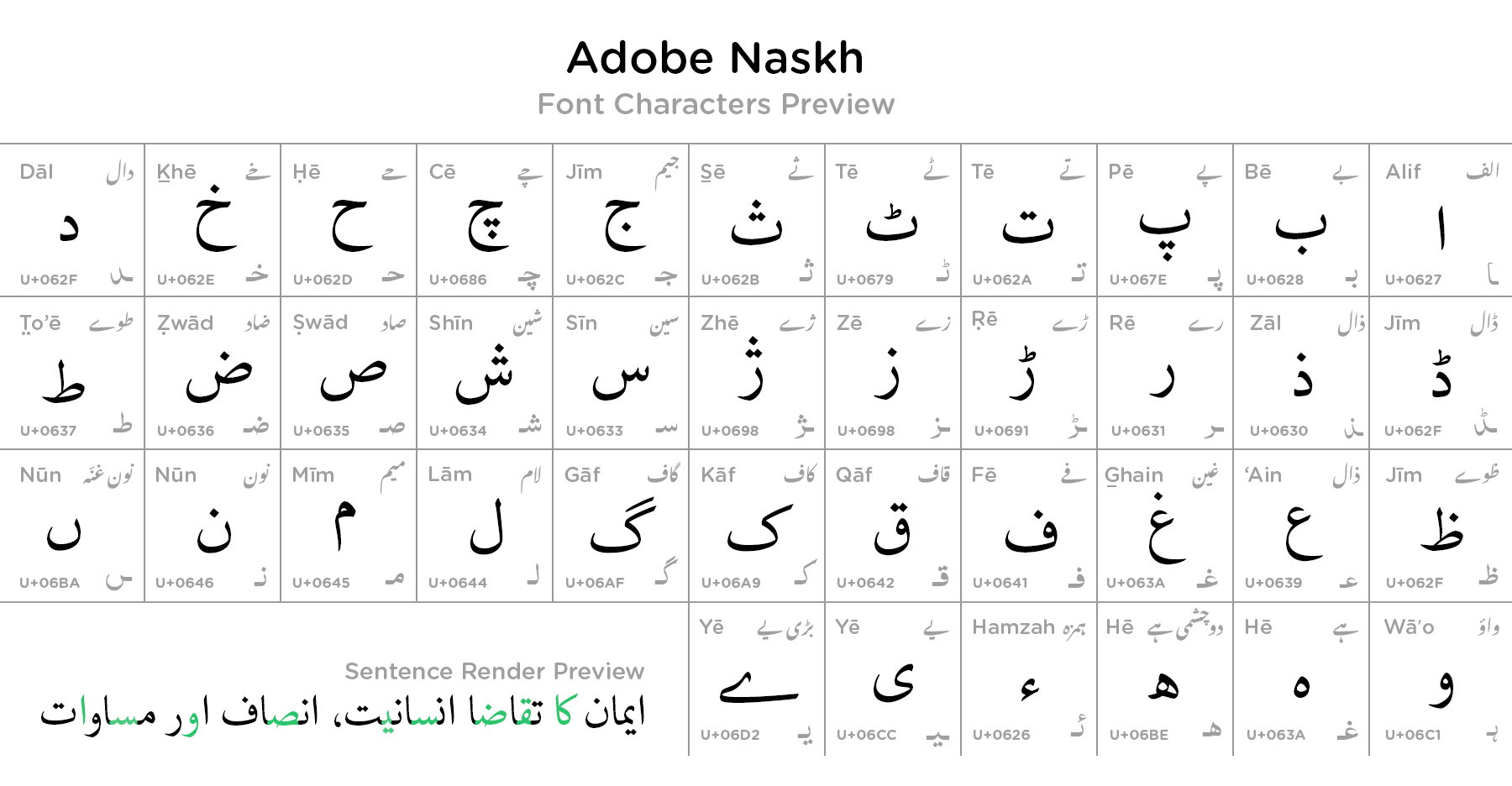
Adobe Naskh, crafted by Muhammad Zuhair Ruhani Bazi and Robert Slimbach, is a regular Arabic typeface designed for elegant typography. The clean lines and balanced proportions create a sophisticated and formal aesthetic. It is a versatile font offering support for languages like Arabic, Latin, Greek, and symbol scripts to cater to various multilingual projects. With a large character set of 462 letters and symbols and 1150 glyphs, it offers comprehensive language support and typographic flexibility. The font features a medium weight and medium width, striking a balance between elegance and readability. Its Unicode blocks cover a wide range, from Basic Latin to Arabic Presentation Forms-A, ensuring compatibility with various text encoding standards. Released on January 16, 2021, Adobe Naskh is suitable for a numerous design application, including editorial design, branding, signage, and more.
The font type of this Arabic typeface is moderately thickened, featuring a regular appearance with sharp edges. Inspired by Naskh style calligraphy, it incorporates horizontal emphasis and slightly slanted edges that remind us of writing with a qalam. The letters have varying thicknesses throughout the letterform and maintain a solid stroke. With high legibility on screens, even at smaller sizes, it’s best suited for long textual blocks, thanks to its easy-to-understand appearance and moderate weight. This versatile font finds application in various contexts, such as books, newspapers, official documents, invitations, and more.